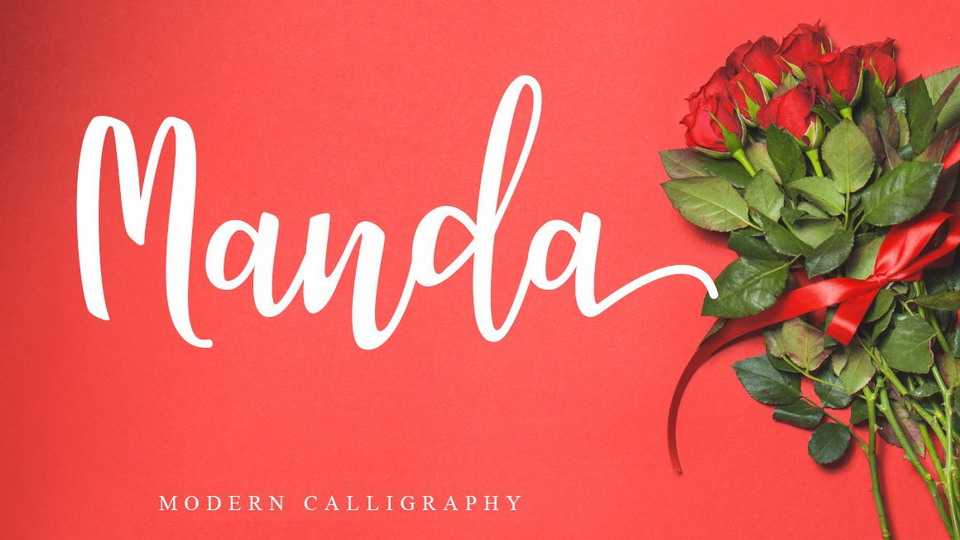
Download Manda font, a beautiful handmade calligraphy script. Suitable for logo, branding, invitation, greeting card, signature, poster and any design that you create.